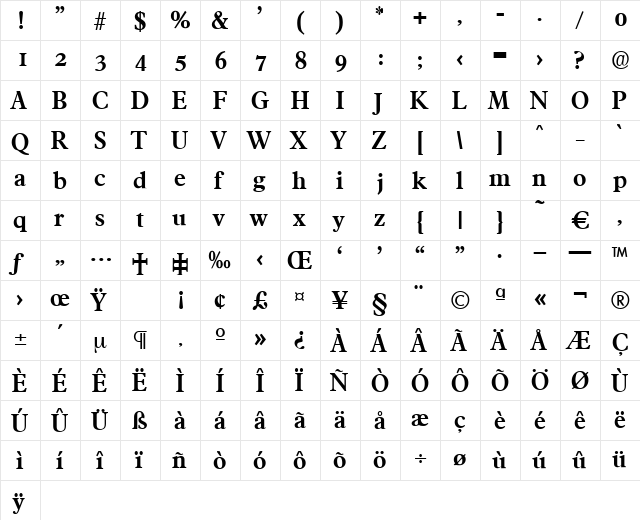
Francisco-DemiBold Regular
Design Context for Francisco-DemiBold Typeface
Francisco-DemiBold is a composed and adaptable typeface that performs quietly and consistently across a wide range of design contexts. The heavy weight commands attention and anchors typographic hierarchies.